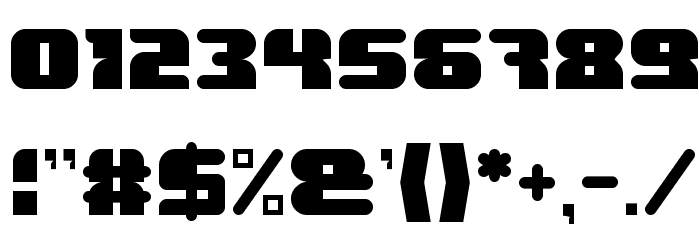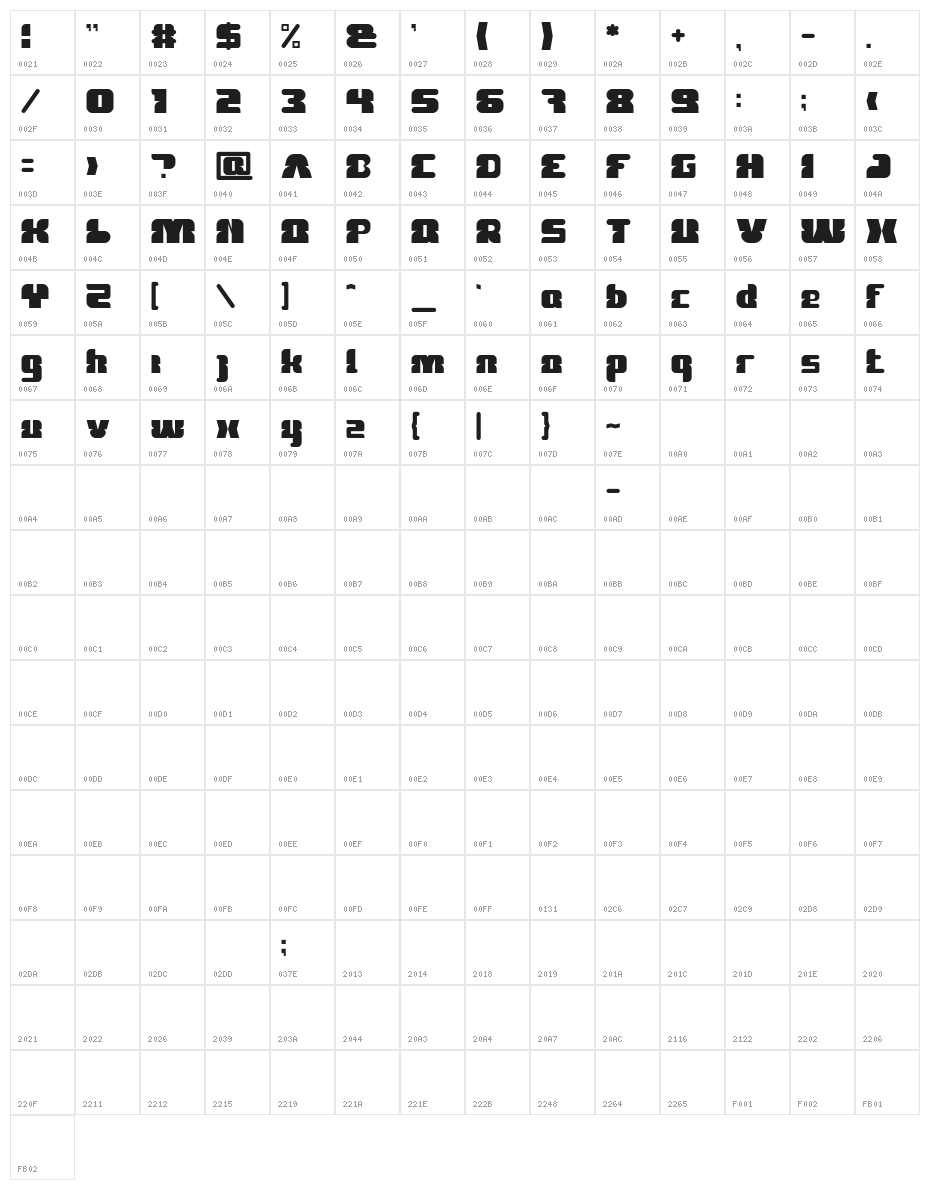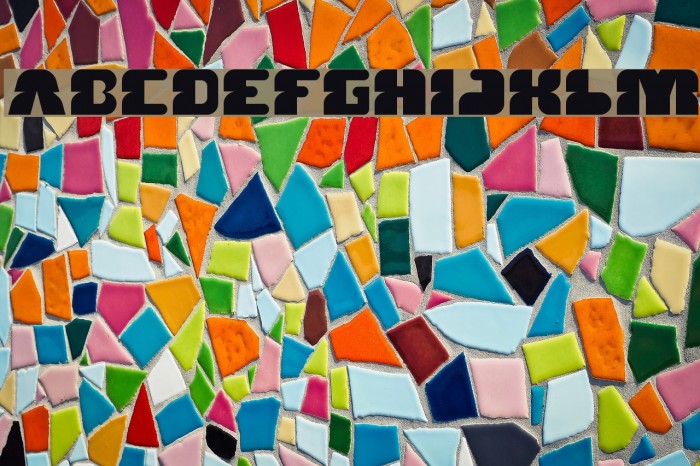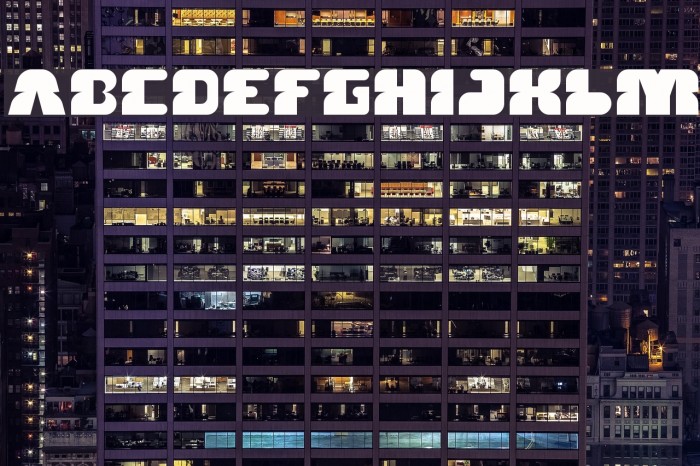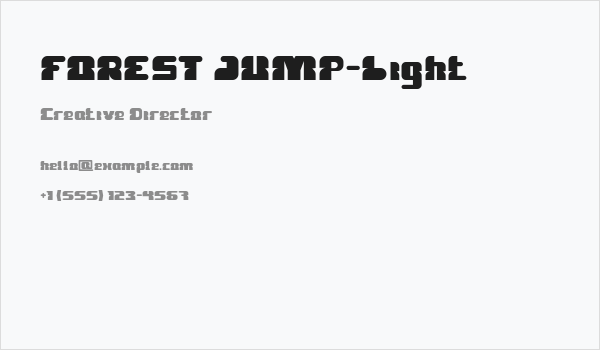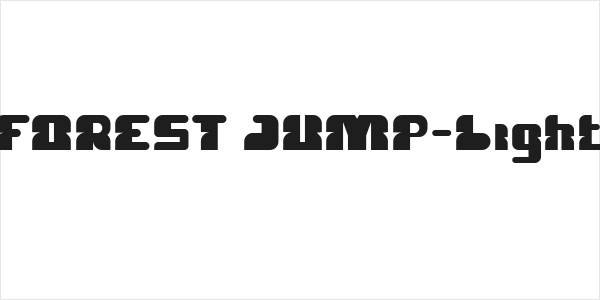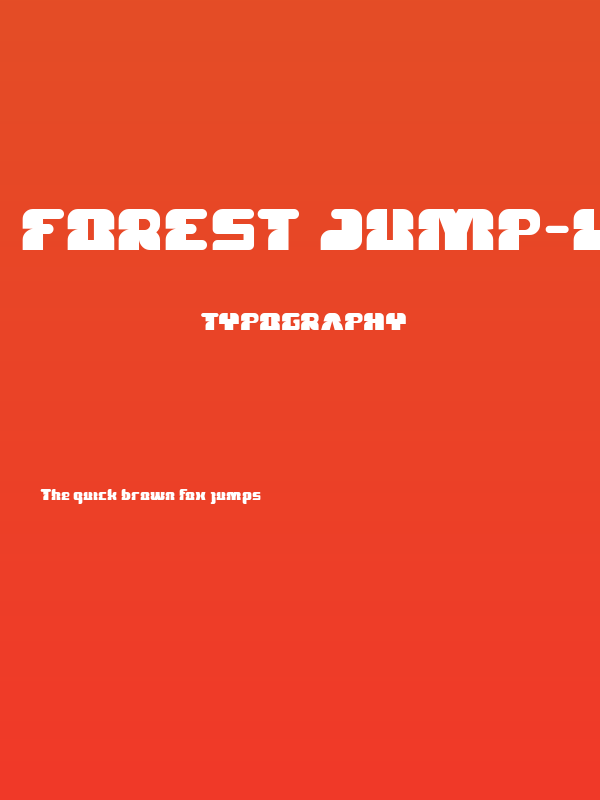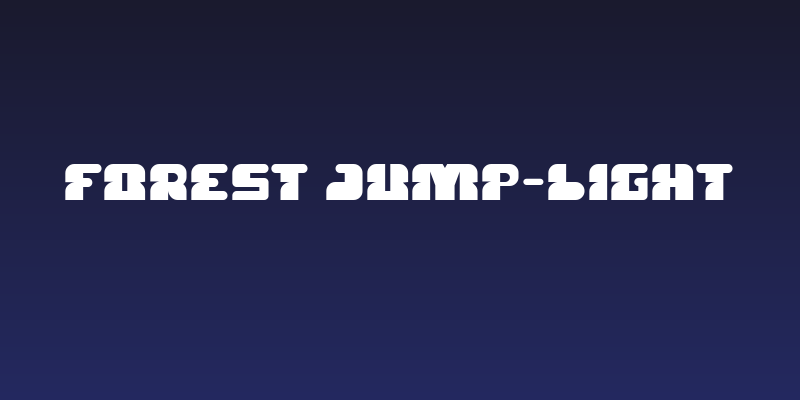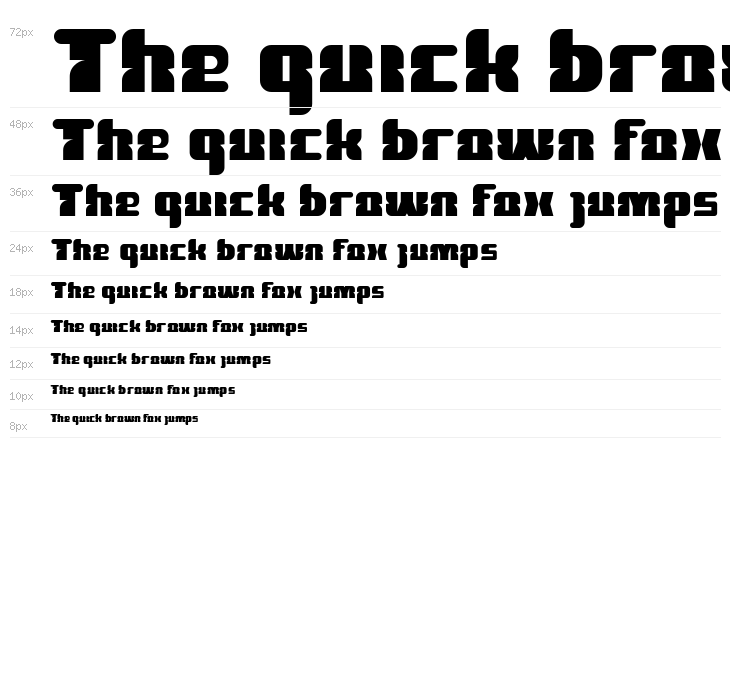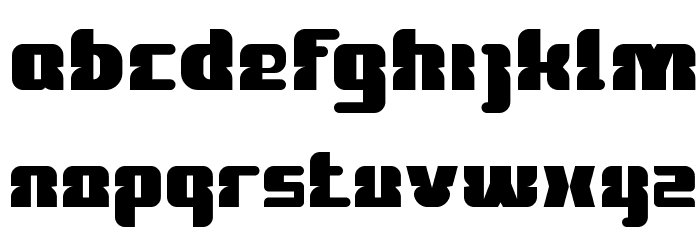
FOREST JUMP-Light Font
FOREST JUMP-Light Description
This font features a bold and striking design with a strong geometric influence. The characters are constructed with thick, block-like shapes that create a sense of solidity and impact. The uppercase and lowercase letters maintain a consistent width, contributing to a uniform appearance. The numbers and special characters follow the same bold style, ensuring cohesion across all elements. The font's unique style makes it stand out, with its heavy weight and distinct character shapes that are both modern and slightly retro. The overall design is eye-catching and ideal for making a statement.
| Proposed Projects | Ideal for posters, headlines, branding, and any project needing a bold, attention-grabbing typeface. |